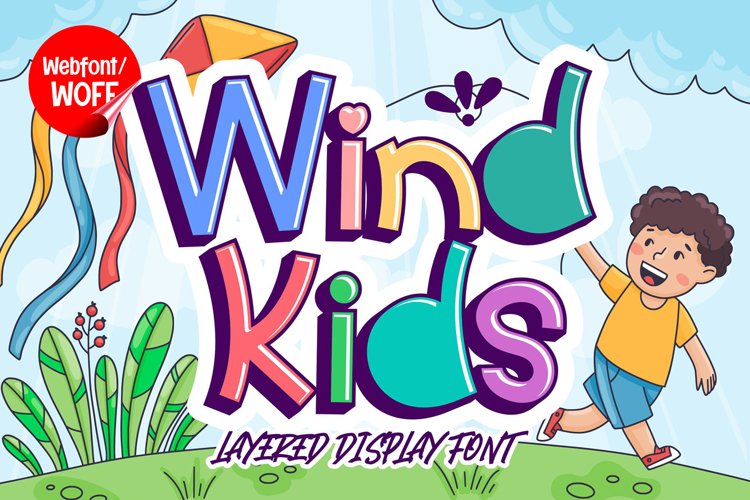
Wind Kids | 3D Layered Cute Webfont for Kids Websites
Wind Kids is a 3D layered cute webfont designed to bring a cheerful, playful, and vibrant atmosphere into modern website design. With its soft shapes, rounded edges, and dimensional layered effect, this font creates a lively and friendly visual style that instantly captures attention. It is an excellent choice for projects that aim to deliver a fun and engaging experience, especially for children-focused content.
Wind Kids features a complete set of uppercase characters designed with cute and rounded forms enhanced by a 3D layered effect. The dimensional style adds depth and creates a playful sense of movement, making it ideal for headlines, banners, hero sections, and featured content. The bold and friendly shapes help establish a strong visual hierarchy while maintaining a lighthearted tone.
In addition to letters, the font includes numbers and punctuation, allowing flexible usage across various parts of a website. It works well for product displays, educational content, promotional text, and call-to-action sections. Each character maintains a consistent cute and layered style, ensuring a cohesive and unified design throughout the layout.
With multilingual support, Wind Kids includes a wide range of accented characters, making it suitable for international websites and global audiences. This allows content to be displayed clearly across different languages while preserving the playful and friendly aesthetic.
The 3D layered cute style of Wind Kids makes it especially suitable for children’s websites, educational platforms, toy brands, creative projects, and family-oriented content. Its bright and joyful appearance adds personality and charm, helping websites feel more inviting and engaging. The dimensional effect also enhances visual interest, making content more appealing to younger audiences.
Despite its playful and decorative design, Wind Kids is created with readability in mind. The spacing and structure of each character are carefully balanced to ensure clarity, particularly in display sizes. This makes it effective for bold headings and short content elements where both style and usability are important.
Wind Kids is a webfont that combines cute design with layered depth and modern digital functionality. Its rounded shapes, dimensional style, and cheerful character create a distinctive typographic presence that enhances website design. For projects that require a fun, friendly, and visually engaging font, Wind Kids offers a reliable and delightful solution.